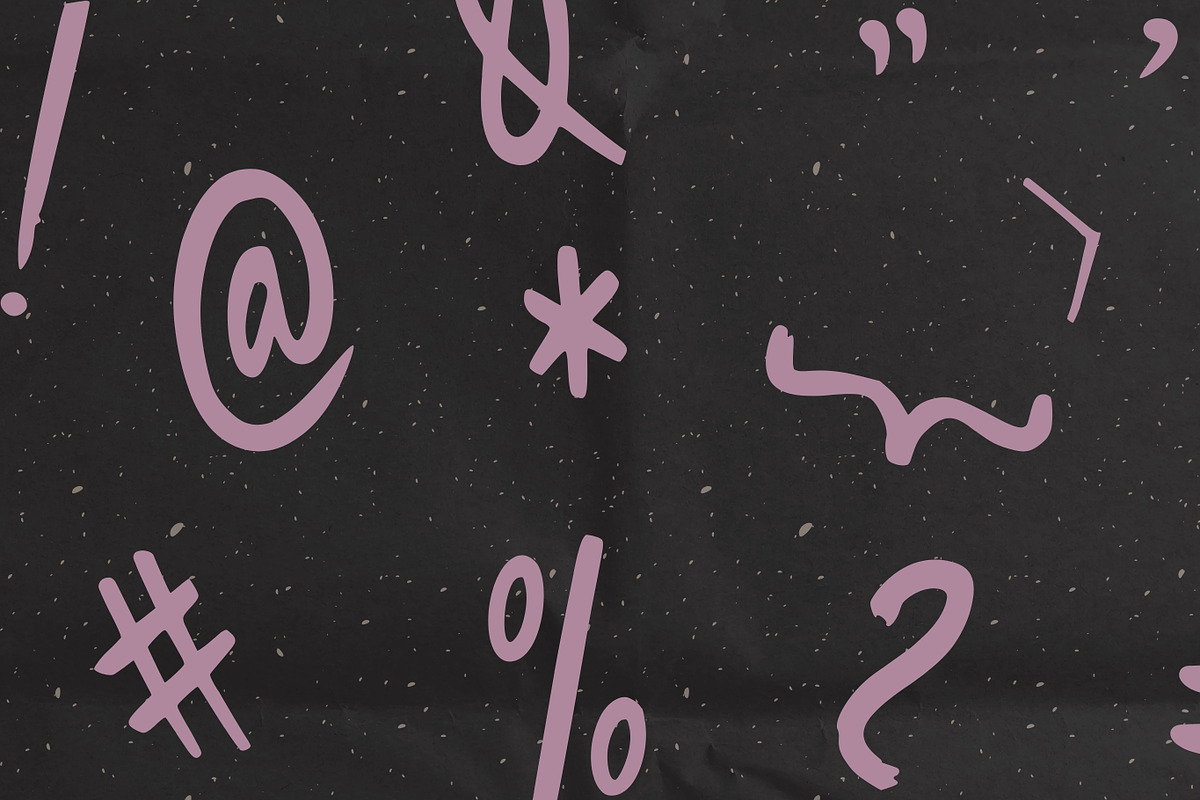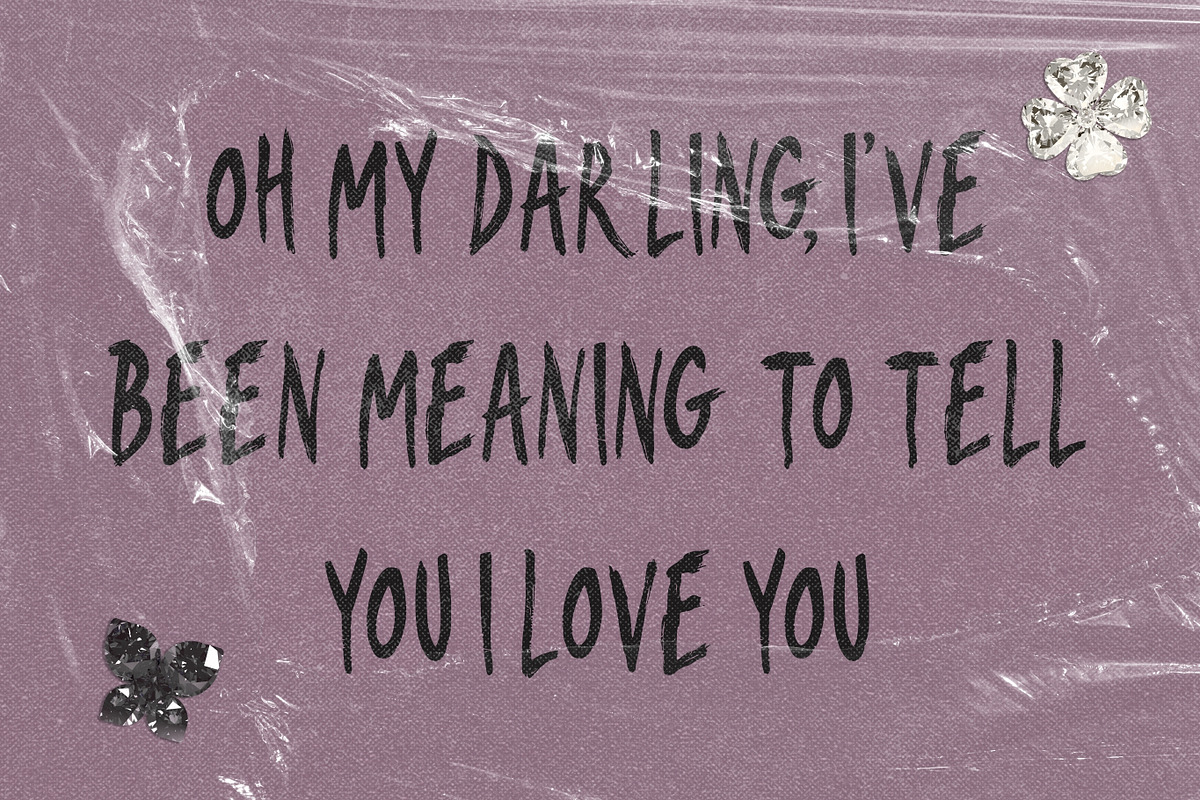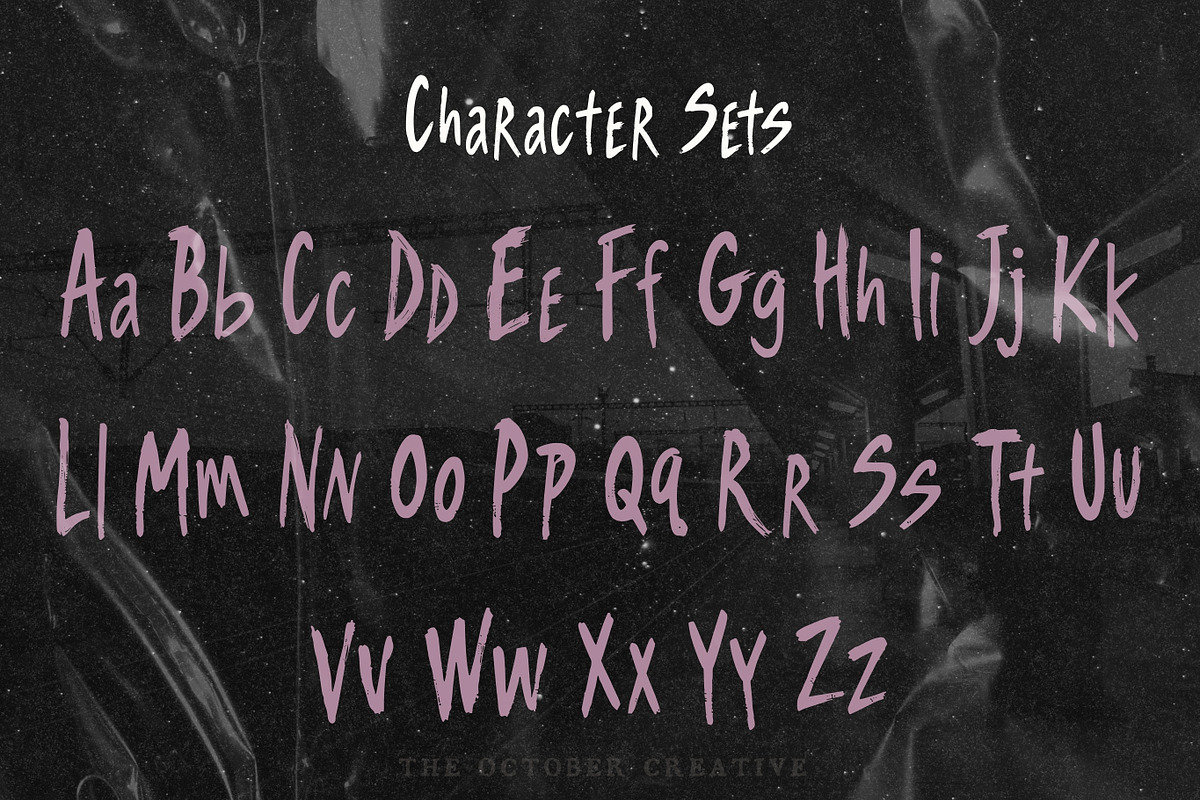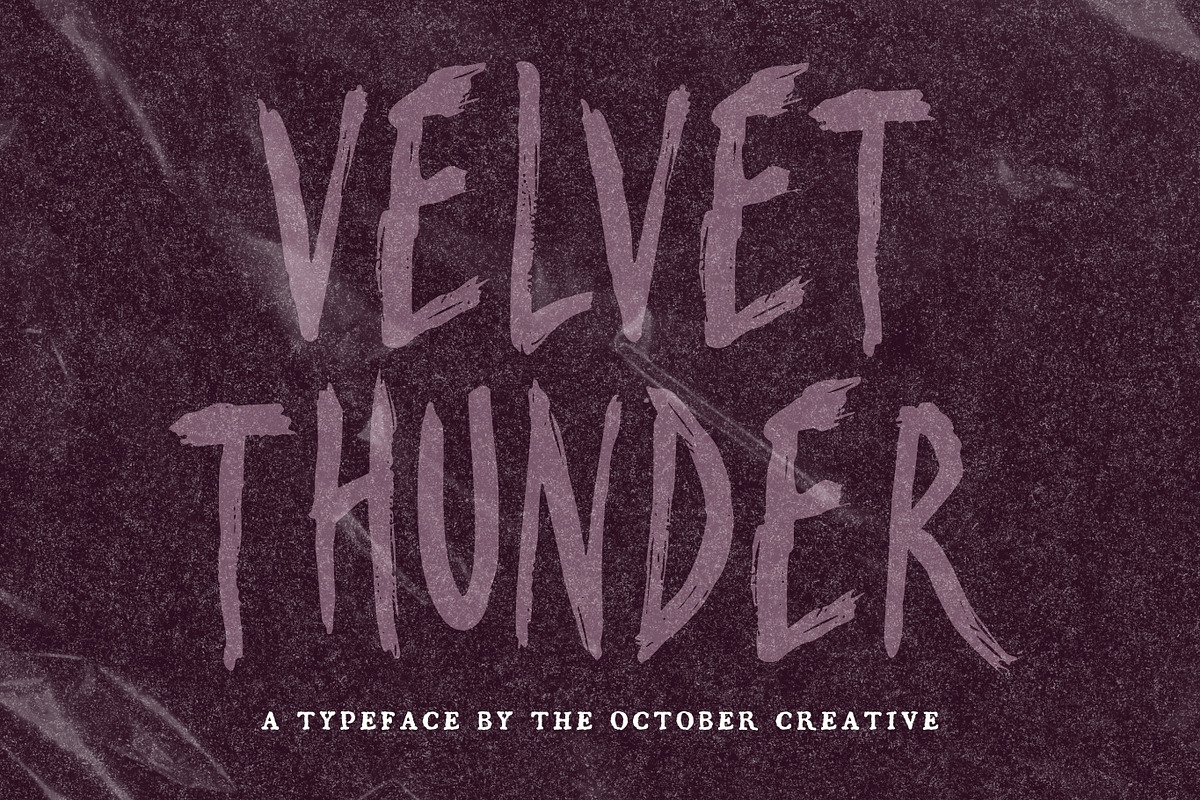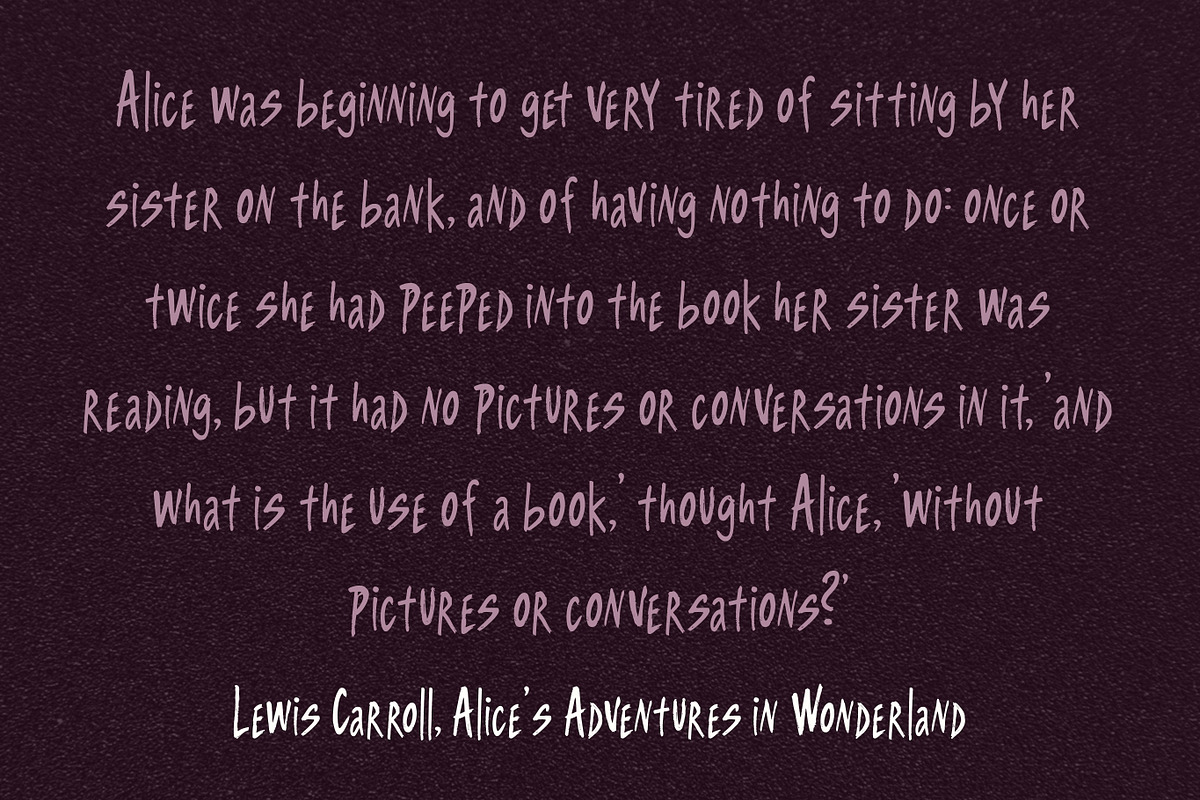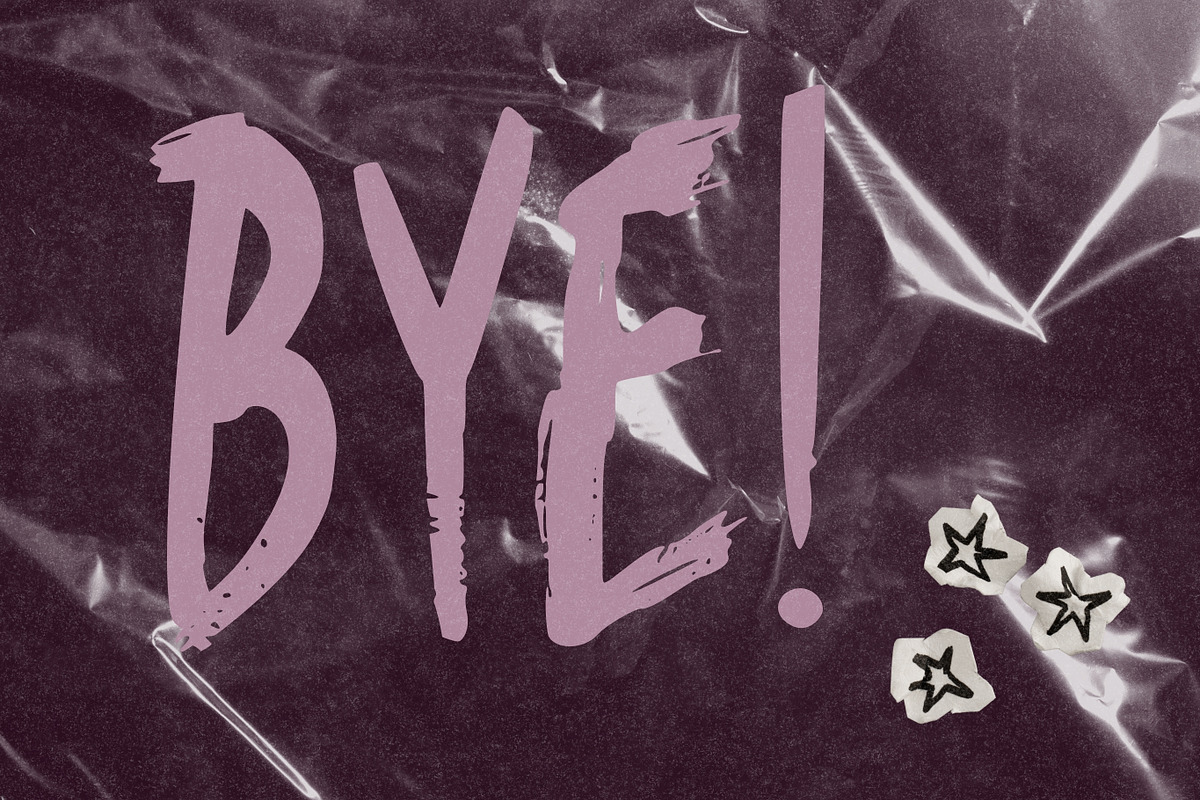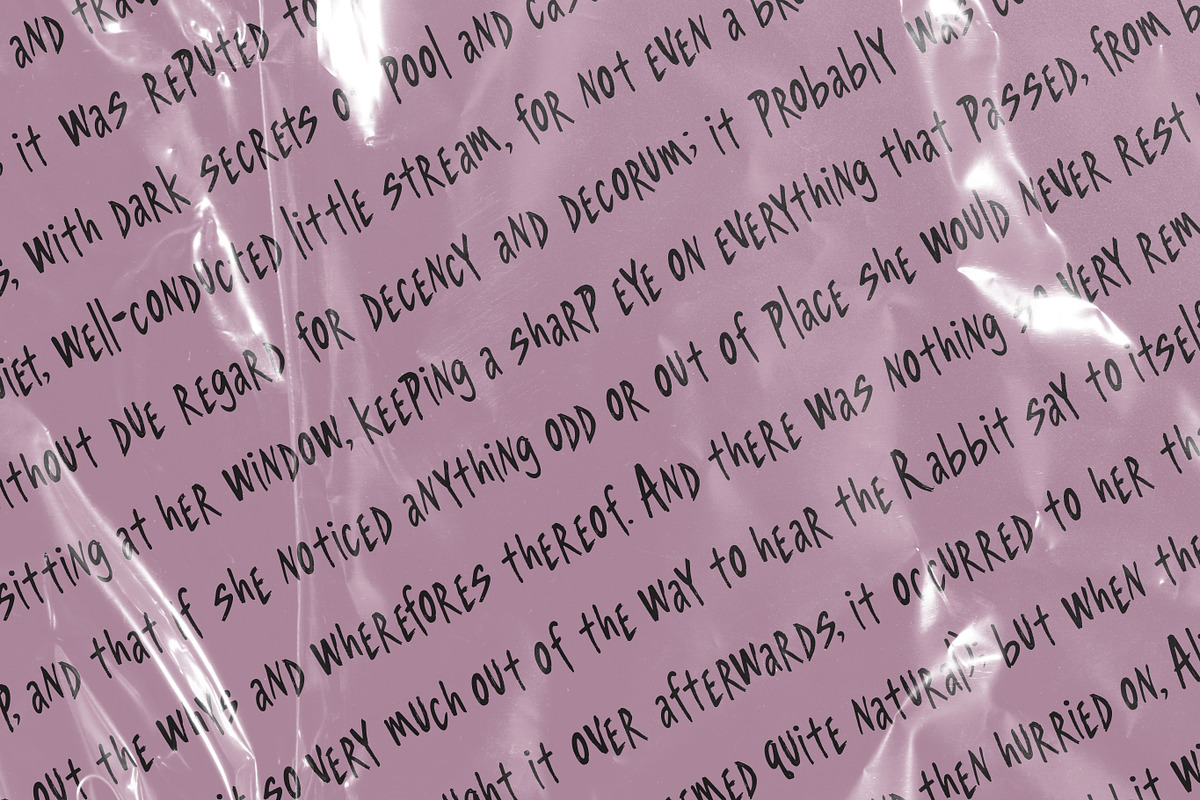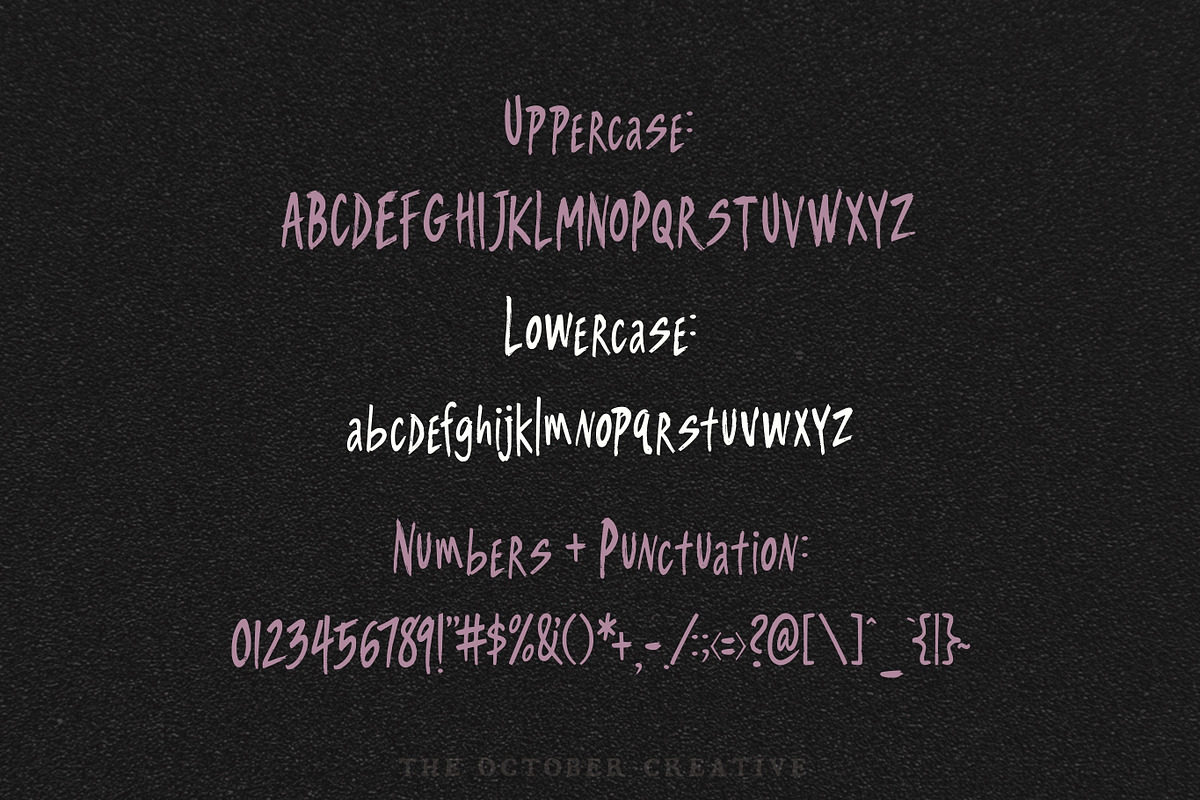
Velvet Thunder Dry Brush Font
Velvet Thunder is a dry brush font with condensed, rough-edged letters and streaky brush-stroke edges built into every character. Use it for concert posters, album covers, bold social headlines, and book titles.
CHARACTER SET
Uppercase A to Z, lowercase a to z, numerals 0 to 9, and every standard keyboard punctuation mark and symbol: ! " # $ % & ' ( ) * + , - . / : ; < = > ? @ [ \ ] ^ _ ` { | } \~
Curly quotes and apostrophes (‘ ’ “ ” ‚ „), en and em dashes, an ellipsis, and a bullet.
Accented letters: À Á Â Ã Ä Å Ç È É Ê Ë Ì Í Î Ï Ñ Ò Ó Ô Õ Ö Ù Ú Û Ü and their lowercase forms.
LANGUAGES SUPPORTED
English, plus the accented vowels, Ñ, and Ç used in names and everyday words in Spanish, French, Italian, Portuguese, German, and Dutch. Not included: ß, Æ, Ø, Œ, and the upside-down ¿ and ¡.
SPECIAL CHARACTERS
There are no hidden alternates or ligatures, so every character types straight from the keyboard. Accented letters type with your keyboard's usual accent shortcuts (on a Mac, hold down the letter), or you can insert them from the Glyphs panel in your design software, the Character Viewer on a Mac, or Character Map on Windows.